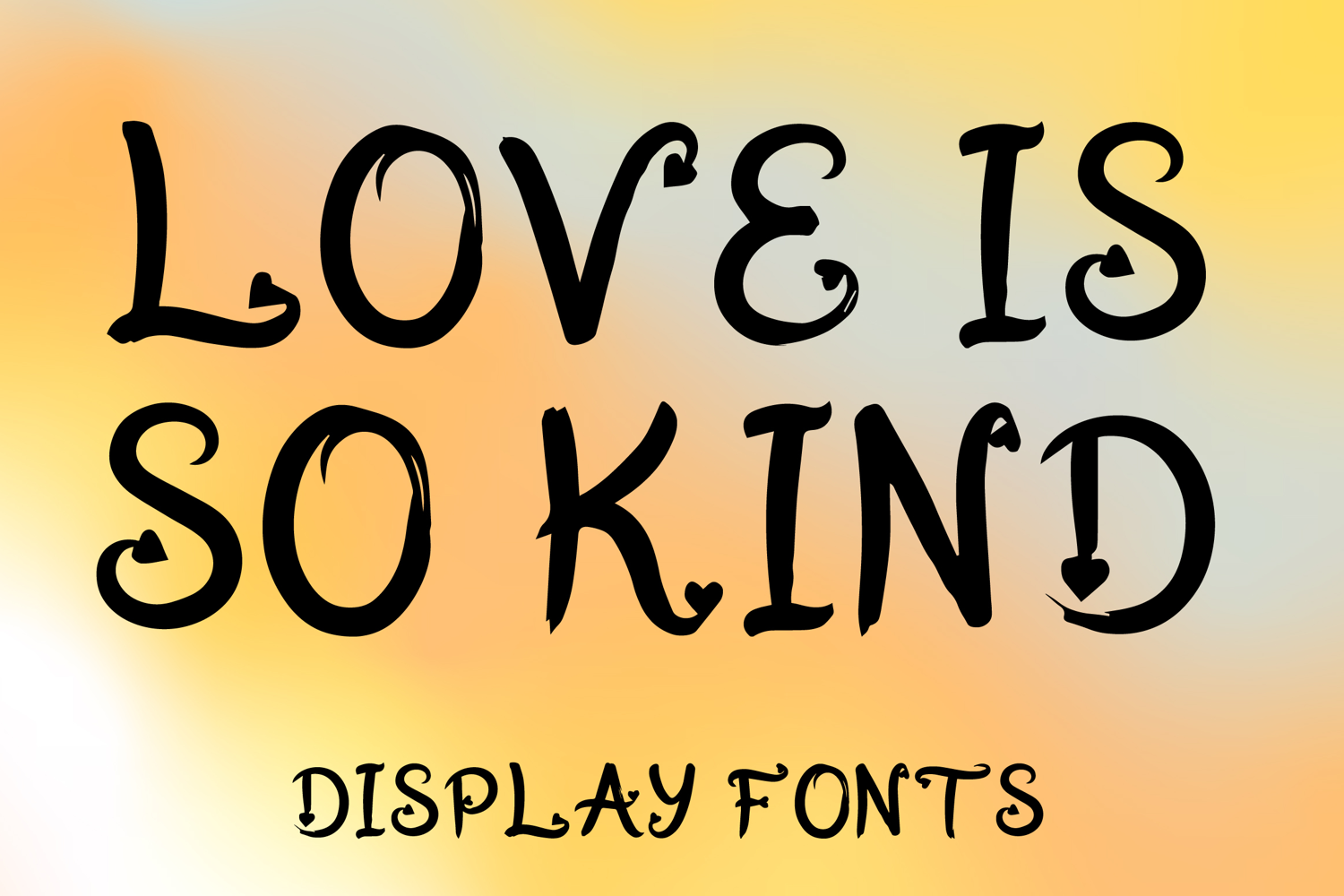
LOVE IS SO KIND
LOVE IS SO KIND is a whimsical decorative display font with a charming hand-drawn style and romantic artistic flair. Its uppercase letterforms feature soft curves, playful swashes, and delicate heart-like details that create a warm, expressive, and eye-catching look. Designed with uppercase letters A–Z and numbers 0–9, LOVE IS SO KIND is perfect for branding, invitations, posters, packaging, quotes, social media graphics, and creative projects that need a sweet and memorable statement.